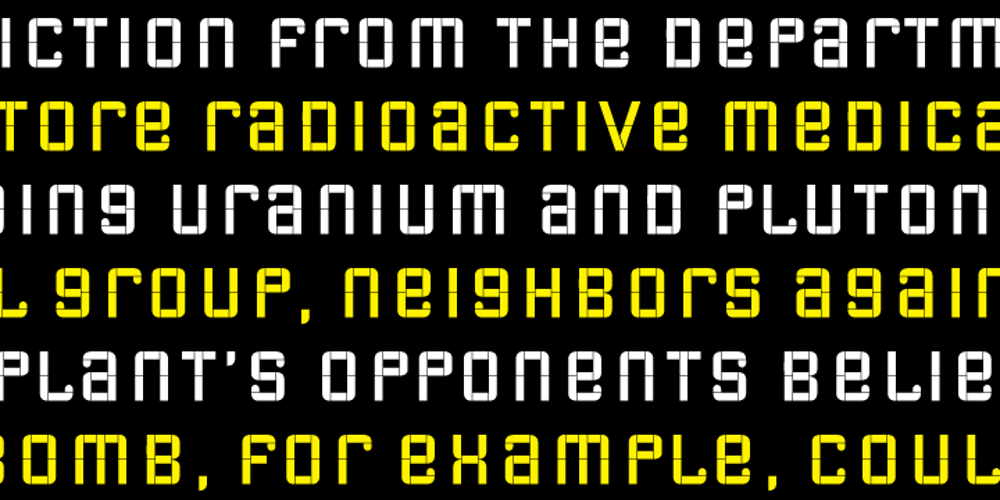
Radiac
Radiac font
Radiac Font Family was designed by Richard D. Granados and published by Stereo Type Haus. Radiac contains 2 styles and family package options. Radiac is a semi-monospaced unicase design inspired by lettering constructed from pieces of tile.